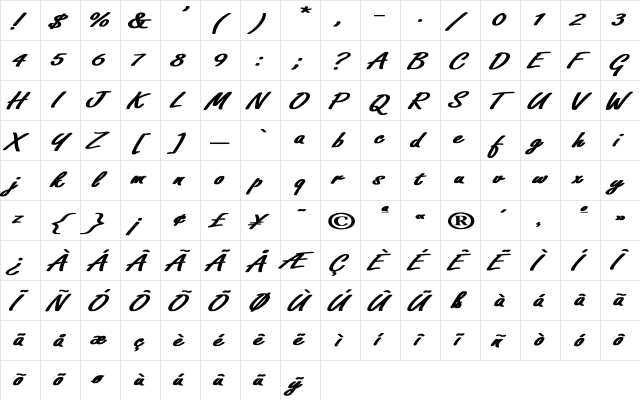
Freeport-Normal Ex Bold Bold
Design Context for Freeport-Normal Ex Bold Typeface
Freeport-Normal Ex Bold takes a measured approach to typography — its balanced proportions and neutral character make it a reliable workhorse for both digital and print work. Its bold stroke weight gives it real presence on the page.